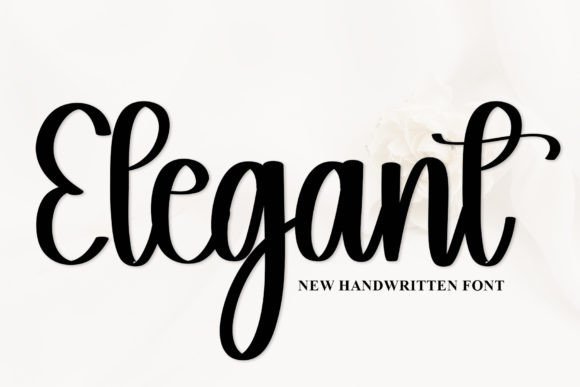
Where Words Become Works of Art
Have you ever sat at your desk, staring at a blank page, trying to put your creative vision into words? The words dance in your head, but when you try to put them down, they lose their magic. That’s when you know you need the right tool to bring your ideas to life. For designers and writers alike, finding the perfect font can be the difference between a good project and a great one.
Enter Elegant Font, a beautiful handwritten font that’s equal parts classic calligraphy and modern flair. With its balanced, varied strokes, Elegant Font is designed to elevate your projects to new heights. Whether you’re designing a logo, creating a brochure, or writing a novel, this font is sure to add an extra layer of sophistication and elegance to your work. For designers, Elegant Font is a valuable asset that can help you stand out in a crowded market and leave a lasting impression on your audience.
Elegant Font Key Features
- Unique Characteristics: The font features a unique blend of elegance and sophistication, with refined lines, subtle curves, and a sense of luxury.
- Scalability: The font is designed to be highly scalable, with excellent readability at both small and large font sizes, ensuring that it looks great in a wide range of applications.
Elegant Font Review
I have to say, I was initially drawn to “Elegant Font” for its sleek and sophisticated appearance ✨. The subtle curves and refined lines give it a touch of luxury that’s hard to resist. It’s perfect for high-end brands or anyone looking to add a bit of sophistication to their design.
Here are some of the things that really work well with this font:
- ✨ Elegant and refined appearance
- ✨ Perfect for high-end brands or luxury designs
- ✨ Works well in both print and digital formats
However, I do have to mention a few limitations ⚠️:
- ⚠️ May not be suitable for casual or playful designs
- ⚠️ Can be difficult to read at very small sizes
- ⚠️ May not be compatible with all font rendering engines
Overall, I think “Elegant Font” is a great choice for the right project. It’s a beautiful and refined font that’s perfect for high-end designs. Just be aware of its limitations and use it accordingly.
Getting the Most Out of Elegant Font
For optimal results, use Elegant Font in conjunction with a clean and simple design.
Experiment with different font sizes, colors, and styles to create a visually appealing effect.
Elegant Font is ideal for:
Business cards and brochures
Restaurant menus and signage
Alternatives to Elegant Font
Playfair Display is an elegant and luxurious font perfect for high-end designs, such as luxury brands, wedding invitations, and special occasions. It’s ideal for creating a sophisticated and refined look. Compared to Elegant Font, Playfair Display has a more luxurious feel and is more suitable for formal designs.
Great Vibes is a modern and elegant font that’s great for creating a sense of luxury and sophistication. It’s perfect for designs that require a touch of elegance, such as fashion brands, magazines, and high-end websites. Compared to Elegant Font, Great Vibes has a more modern feel and is more versatile in its applications.
Lato is a clean and elegant font that’s perfect for creating a sense of sophistication and refinement. It’s ideal for designs that require a touch of elegance, such as corporate websites, business cards, and formal documents. Compared to Elegant Font, Lato has a more minimalist feel and is more suitable for corporate designs.
Merriweather is a classic and elegant font that’s perfect for creating a sense of sophistication and refinement. It’s ideal for designs that require a touch of elegance, such as academic papers, literary magazines, and formal documents. Compared to Elegant Font, Merriweather has a more classic feel and is more suitable for formal academic designs.